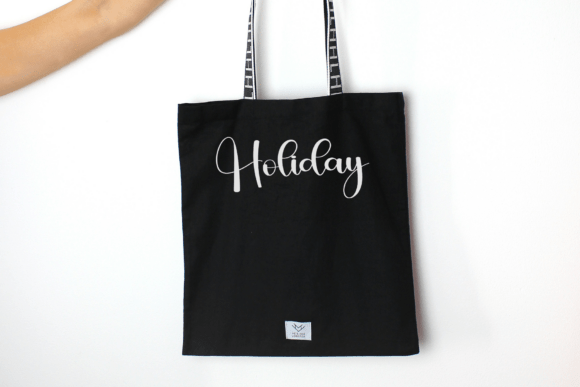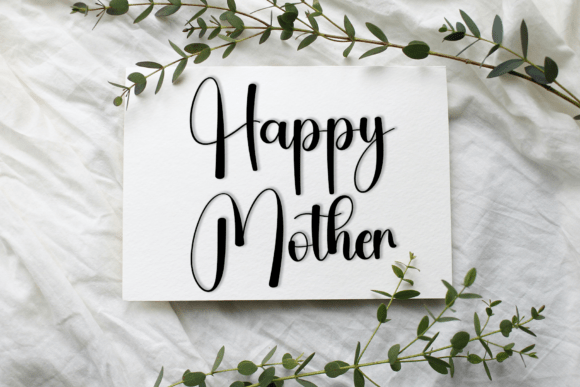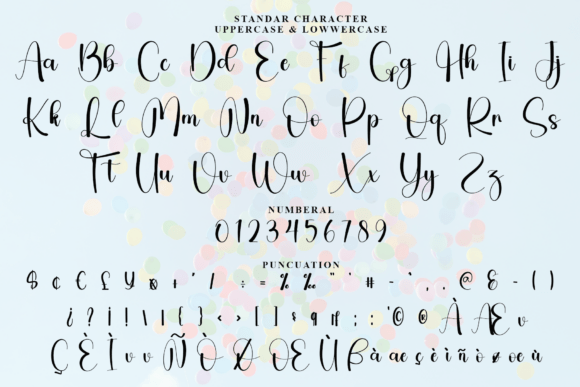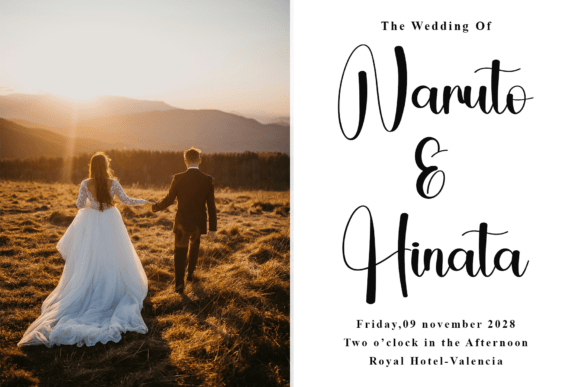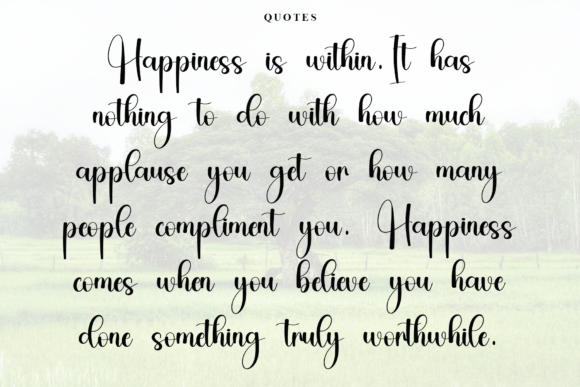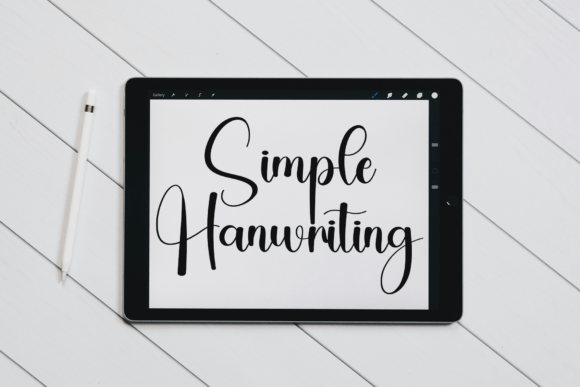
Introducing Birthday Wishlist Font: Elevate Your Designs with Elegance and Class
Are you a designer or crafter looking for a font that exudes sophistication and refinement? Look no further than the Birthday Wishlist Font, a trendy handwritten font that brings a touch of classic calligraphy to your modern design projects. Inspired by timeless elegance, this font is sure to add a dash of luxury to any design, making it perfect for special occasions, branding, and more.
The Birth of a Timeless Font: Birthday Wishlist
Birthday Wishlist Font is a carefully crafted typeface that draws inspiration from traditional calligraphy. Its contemporary atmosphere and impeccable form make it an excellent choice for designers seeking a font that is both stylish and sophisticated. The font’s unique blend of classic and modern elements creates a distinctive look that is sure to capture attention and leave a lasting impression.
Key Features of Birthday Wishlist Font
- Trendy Handwritten Style: Birthday Wishlist Font boasts a beautiful, handwritten style that adds a personal touch to any design.
- Contemporary Atmosphere: Despite its classic inspiration, this font has a distinctly modern feel, making it perfect for a wide range of design applications.
- Impeccable Form: The font’s precise and elegant form ensures that it remains legible and visually appealing, even at smaller sizes.
- Elegance and Class: Birthday Wishlist Font is designed to bring a sense of sophistication and refinement to your designs, making it ideal for high-end branding, wedding invitations, and more.
Whether you’re a professional designer or a crafty DIY enthusiast, Birthday Wishlist Font is an excellent addition to your toolkit. This versatile font can be used for a wide range of projects, including:
- Wedding Invitations and Stationery: Add a touch of elegance to your wedding designs with this beautiful font.
- Branding and Packaging: Use Birthday Wishlist Font to create luxurious brand identities and packaging designs that stand out.
- Social Media Graphics: Elevate your social media presence with eye-catching graphics featuring this stylish font.
- DIY Crafts: Add a personal touch to your handmade crafts, such as cards, gift tags, and scrapbooking projects.
Tips for Using Birthday Wishlist Font
To get the most out of Birthday Wishlist Font, consider the following tips:
- Pair with Contrasting Fonts: Combine Birthday Wishlist Font with a clean, sans-serif font to create visual interest and hierarchy.
- Experiment with Colors: Take advantage of the font’s elegance by pairing it with a range of colors, from classic black and white to bold and bright hues.
- Play with Size and Style: Use Birthday Wishlist Font in various sizes and styles to create visual interest and add emphasis to your designs.
Birthday Wishlist Font is a stunning addition to any designer’s or crafter’s toolkit. Its unique blend of classic calligraphy and modern style makes it perfect for a wide range of projects, from wedding invitations and branding to social media graphics and DIY crafts. With its impeccable form and elegant atmosphere, this font is sure to elevate your designs and leave a lasting impression.